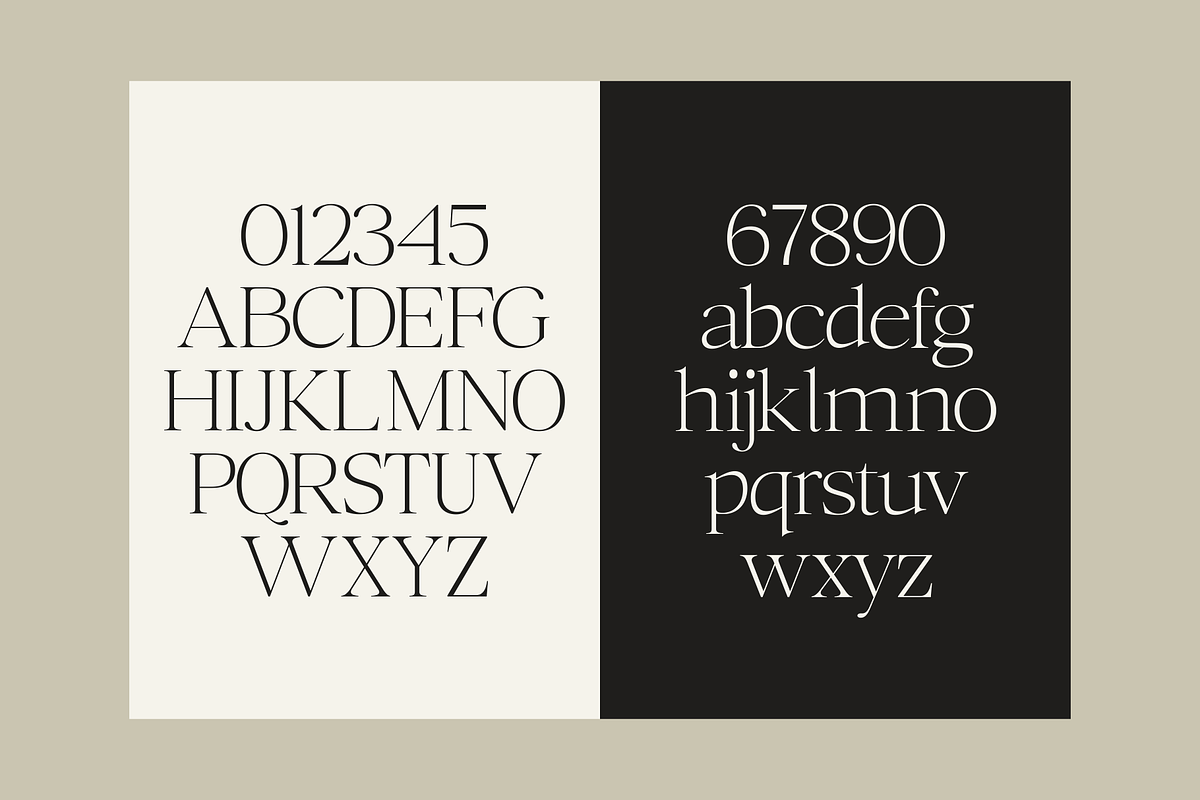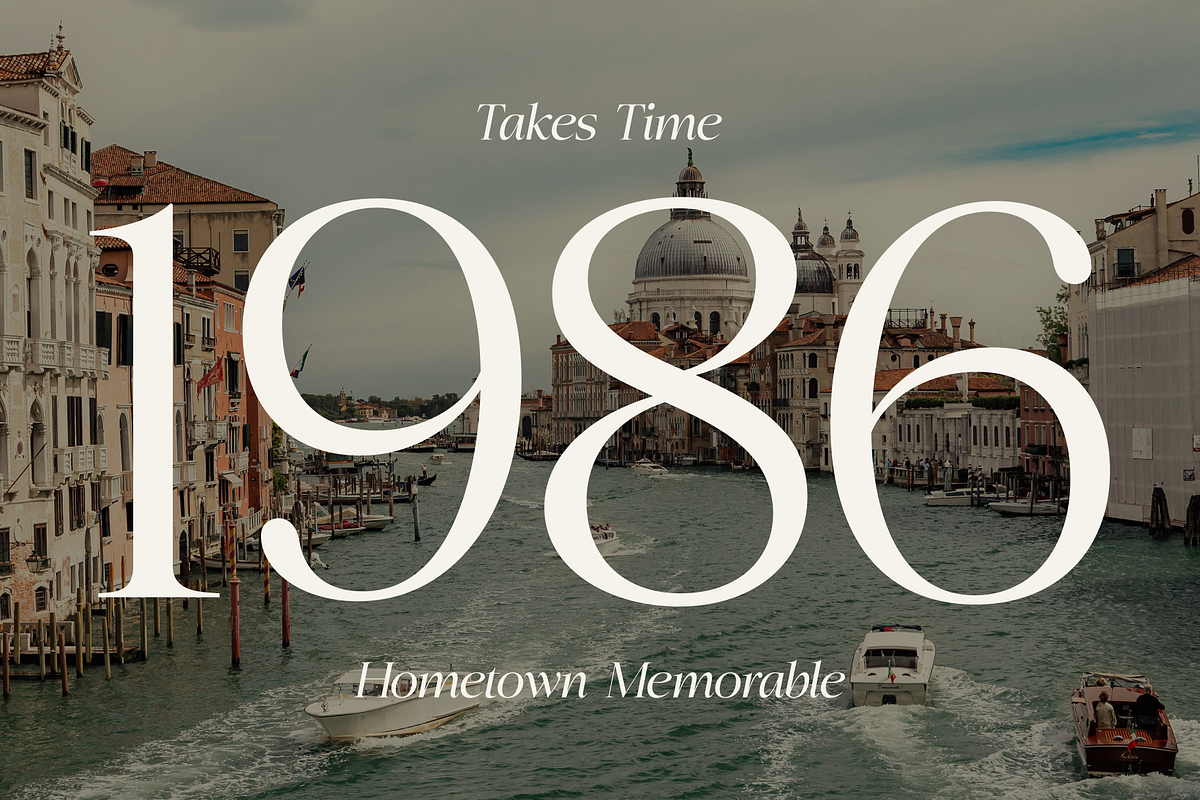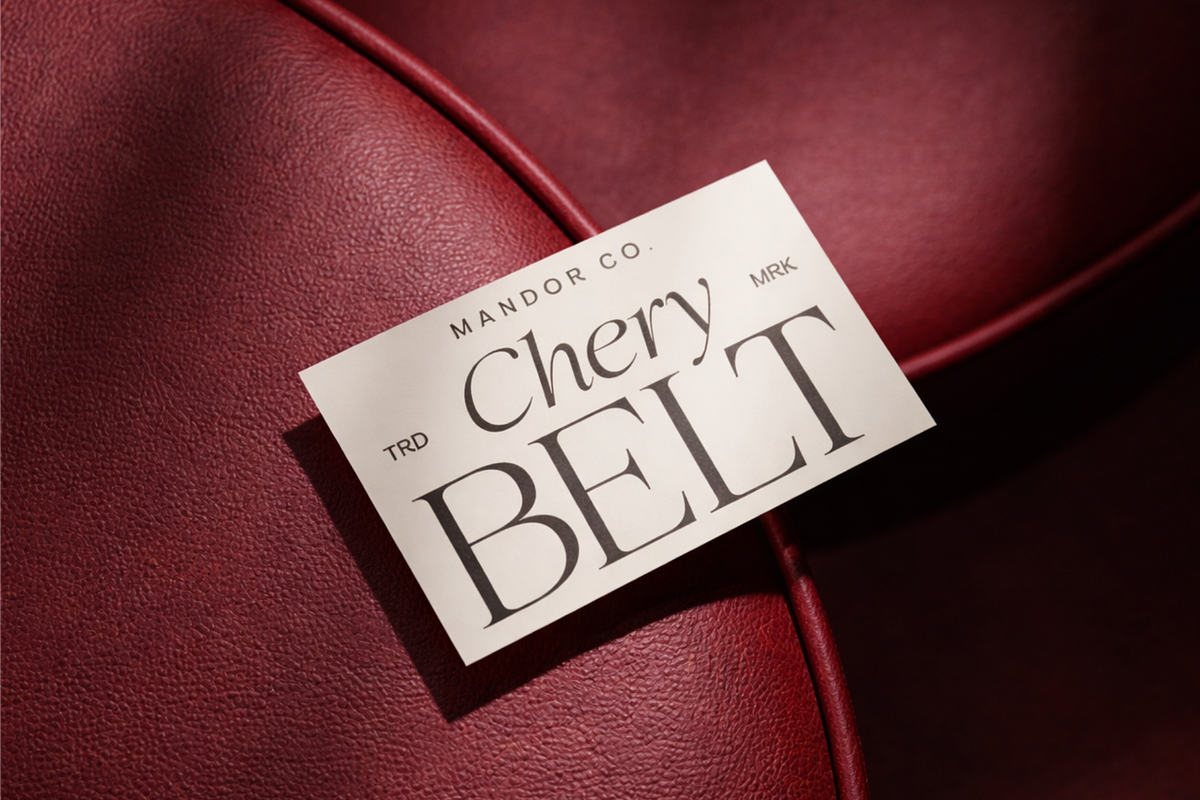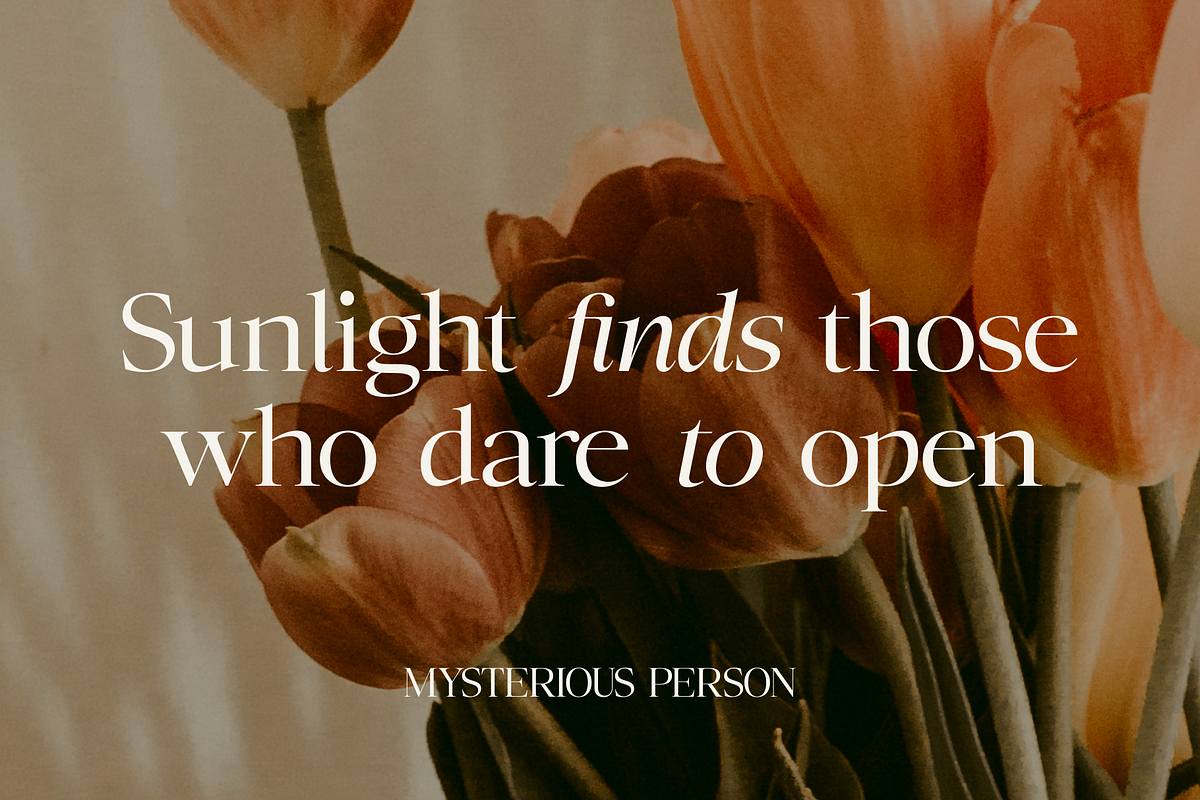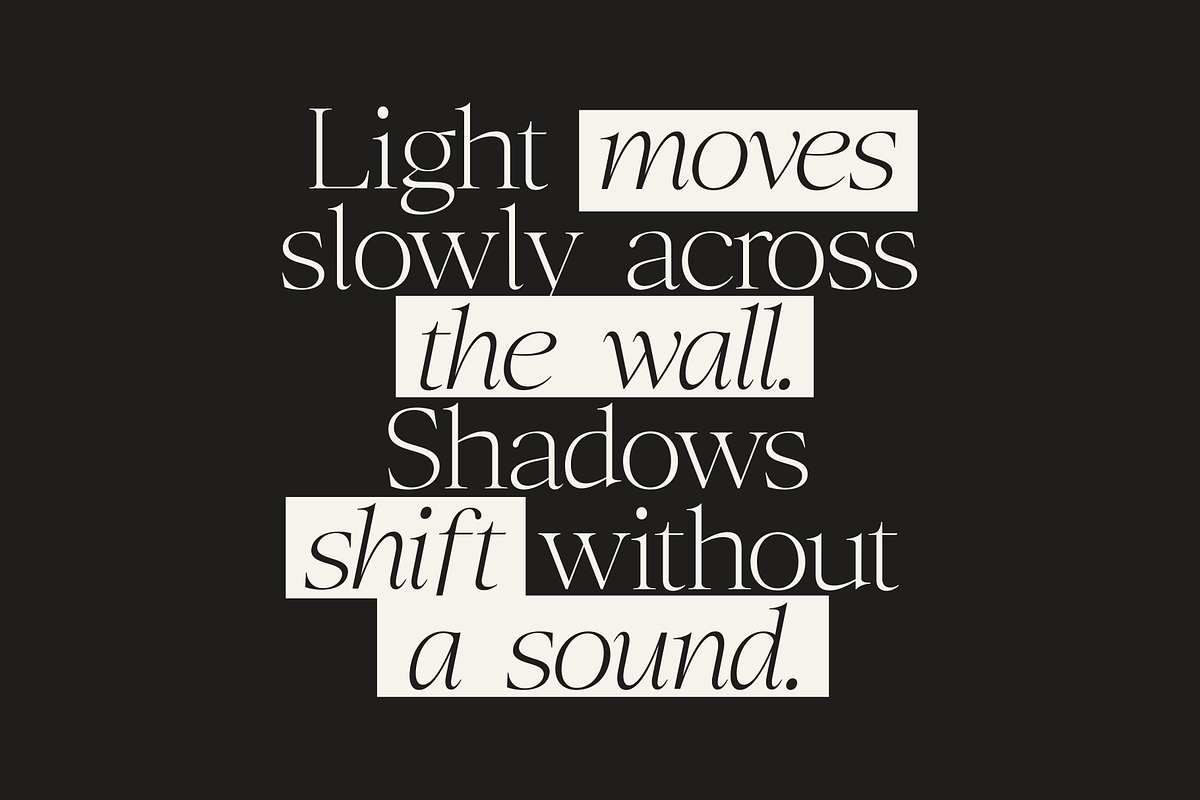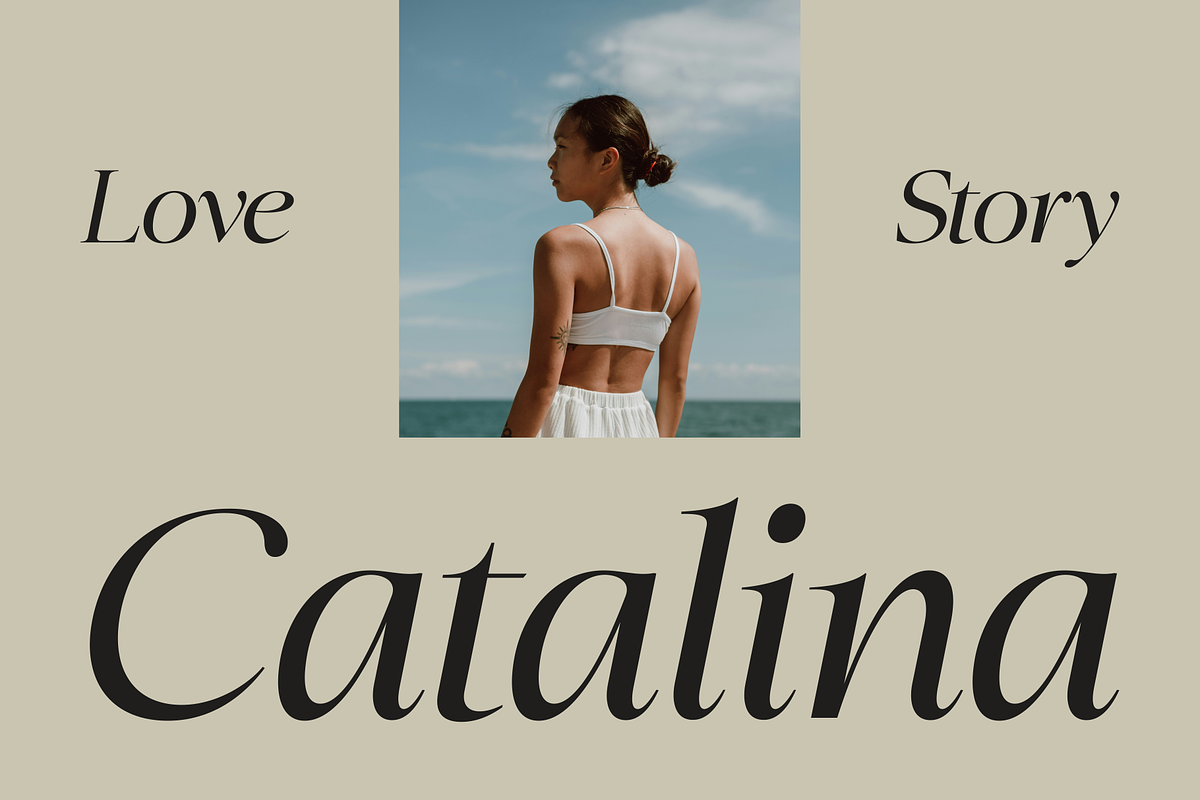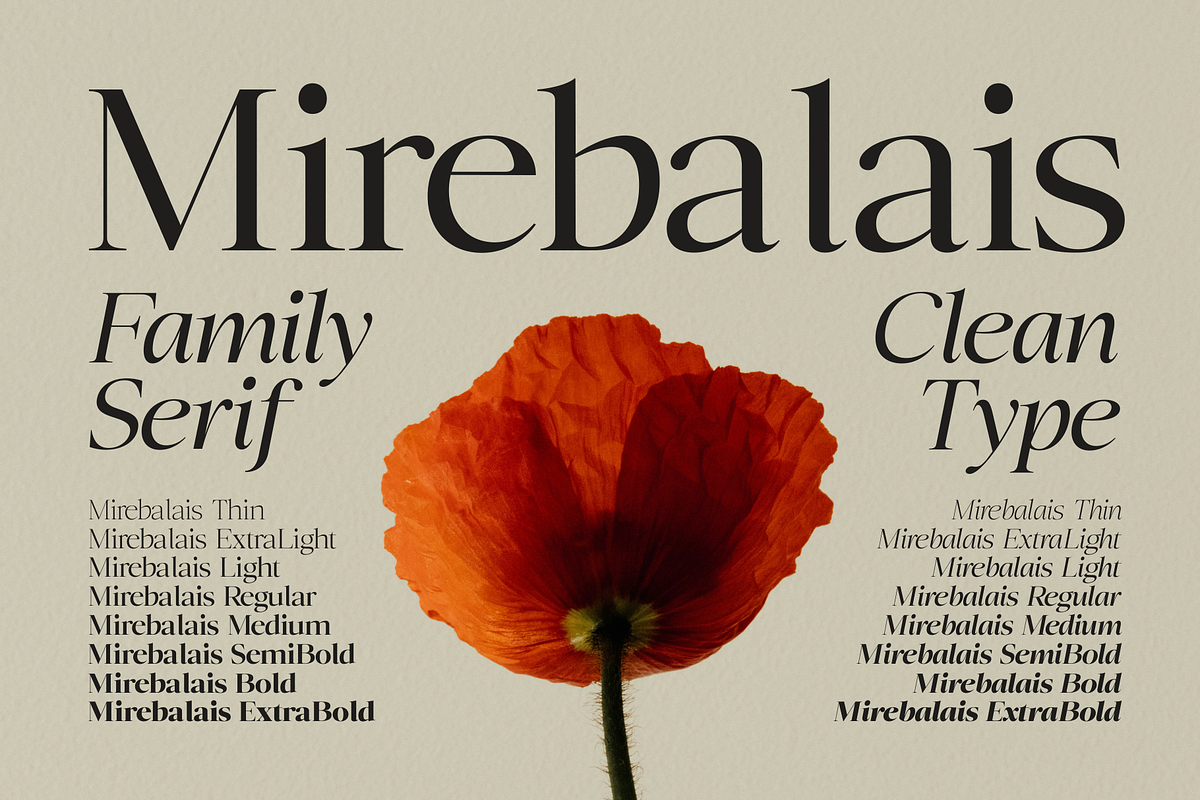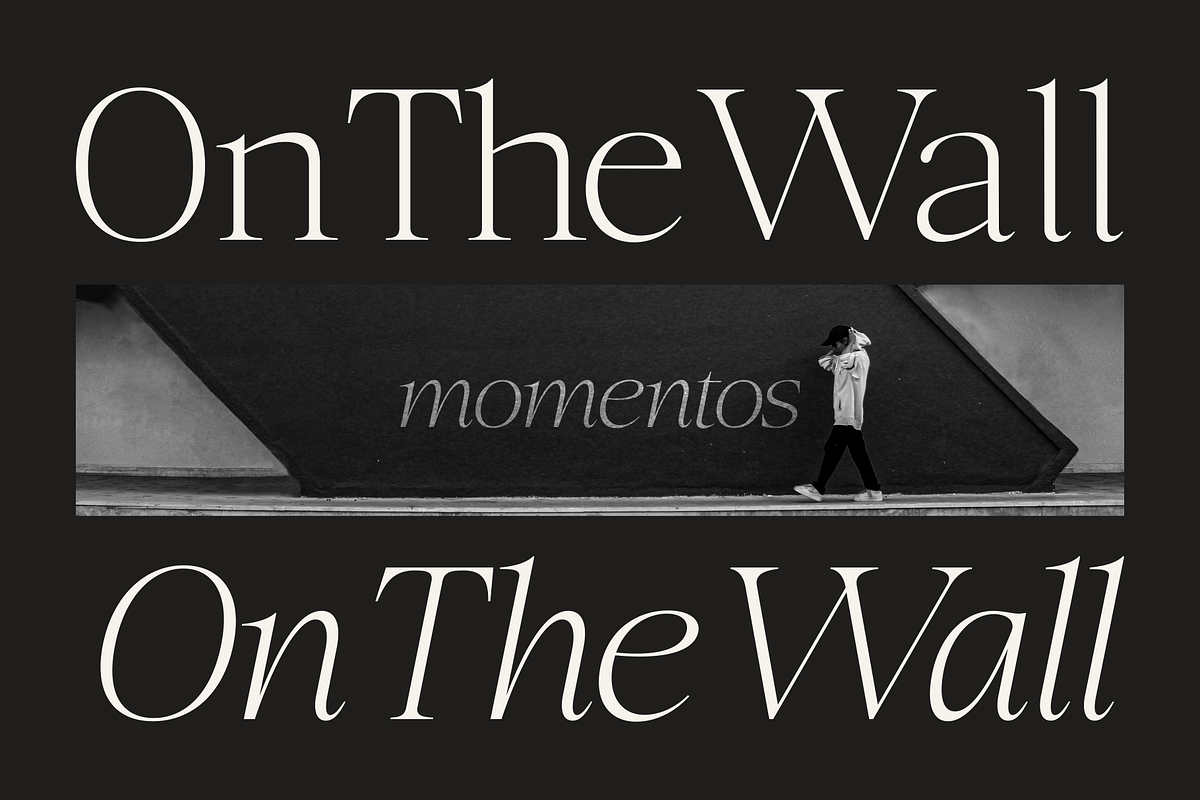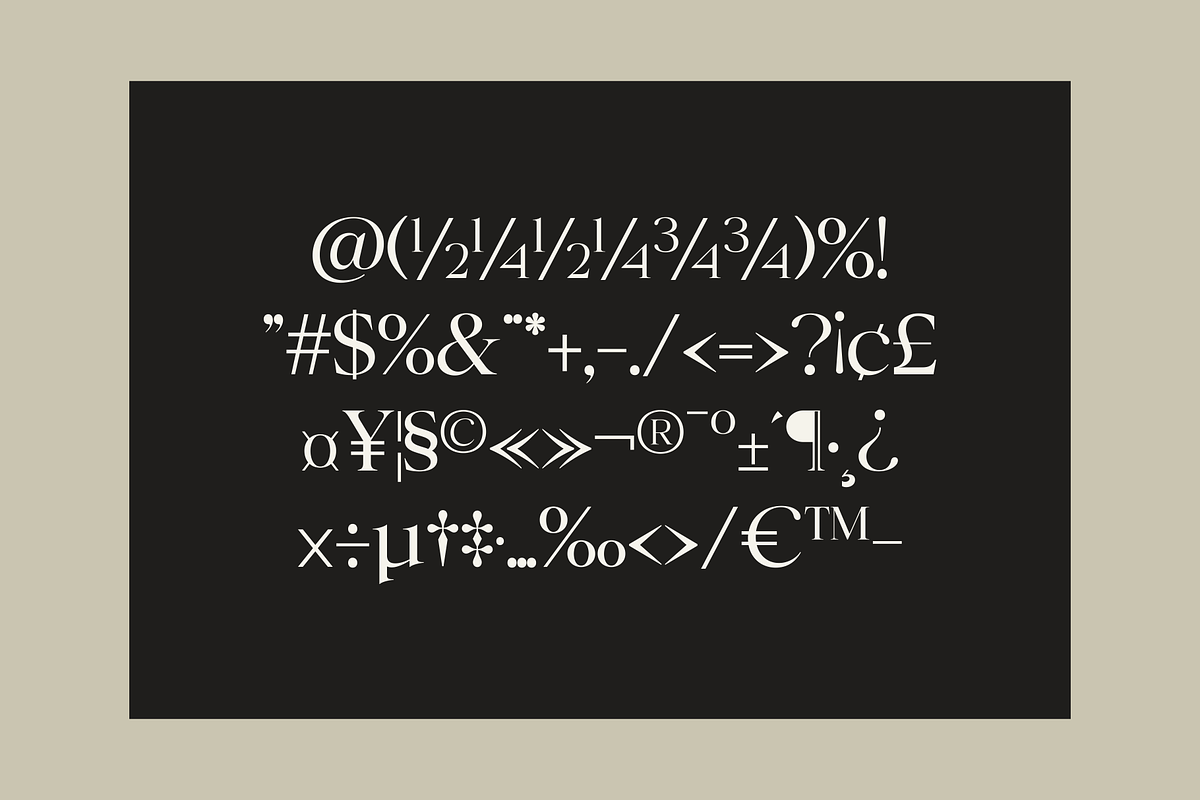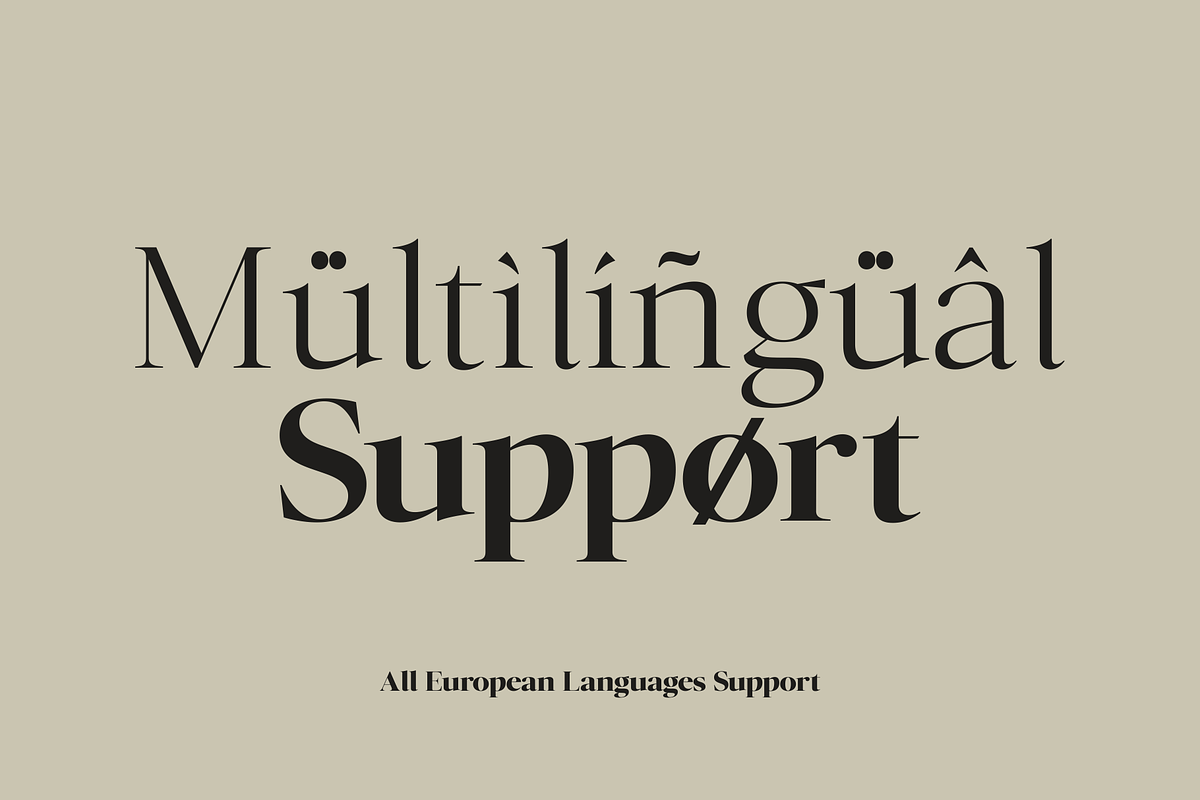
Mirebalais - Family Serif
Mirebalais is a refined modern serif typeface that blends classical elegance with contemporary precision. Designed with a high-contrast structure, it features delicate hairlines balanced by confident vertical stems, creating a sophisticated rhythm across both headlines and body text. Its sharp yet graceful serifs are subtly tapered, giving each letterform a sense of movement and clarity without feeling overly ornamental. The curves are smooth and controlled, while the terminals add a gentle, expressive character that elevates the overall aesthetic.
This typeface family includes a versatile range of weights
- Thin
- Thin Slant
- ExtraLight
- ExtraLight Slant
- Light
- Light Slant
- Regular Slant
- Medium
- Medium Slant
- SemiBold
- SemiBold Slant
- Bold
- Bold Slant
- Extra Bold
- Extra Bold ISlant
- Black
- Black Slant
- Variable
allowing seamless transitions from airy, minimalist compositions to strong, impactful statements. In lighter weights, Mirebalais feels elegant and poetic, ideal for editorial layouts, luxury branding, and fashion visuals. In heavier weights, it becomes assertive and modern, making it perfect for bold titles, logos, and striking typographic posters.
Mirebalais also performs beautifully in italic styles, where its flowing forms and slightly calligraphic nuances introduce warmth and sophistication. The italics maintain structural consistency while adding expressive contrast, making them suitable for storytelling, quotes, and refined design accents.